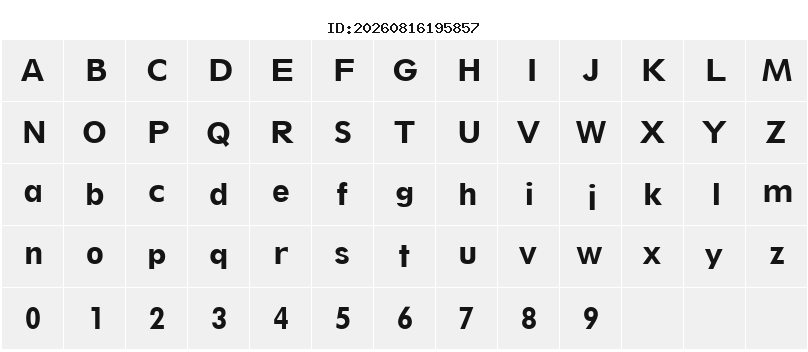
Spartan LT BookClassified Preview
• Font Name: Spartan LT BookClassified
• Full Font Name: Spartan LT Heavy Classified
About Spartan LT BookClassified.ttf
Spartan LT BookClassified.ttf is a modern, elegant sans-serif font designed for ultimate readability and visual harmony. Perfect for branding, headlines, web design, and print materials.